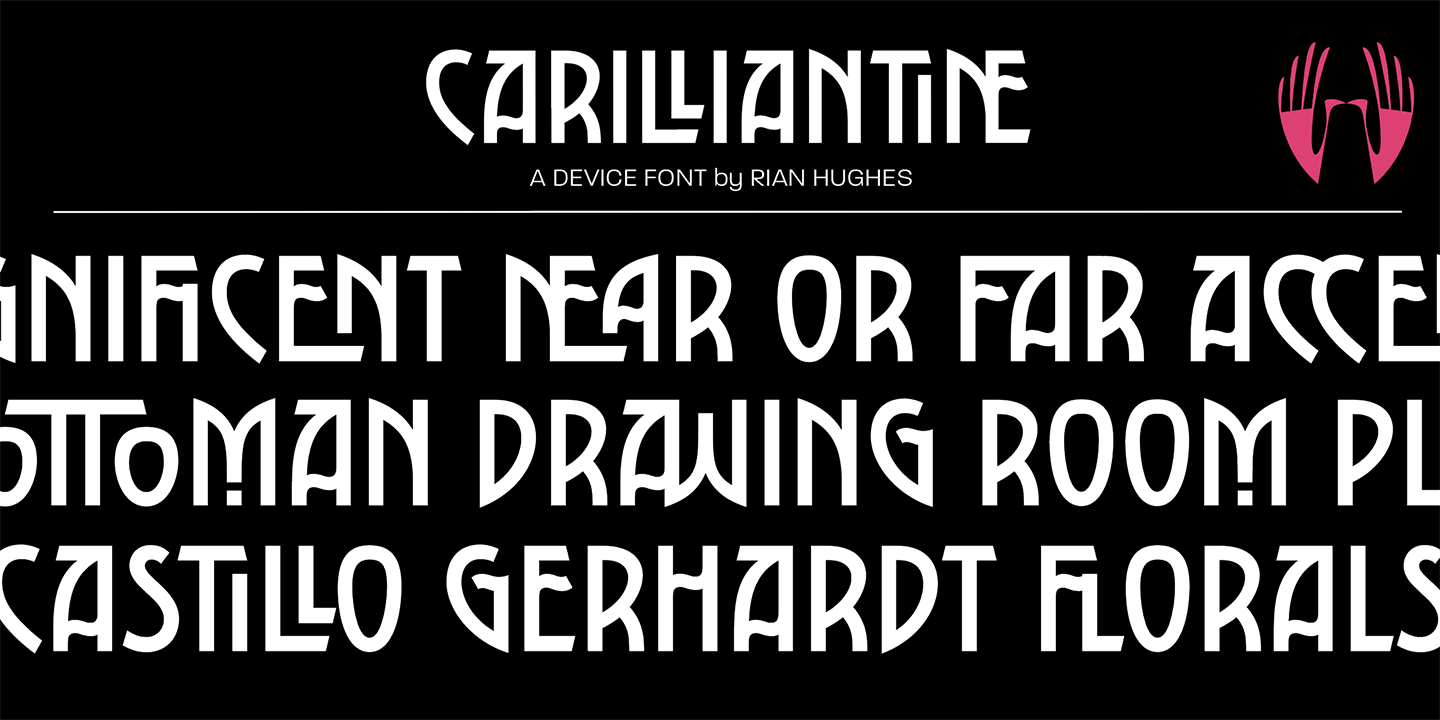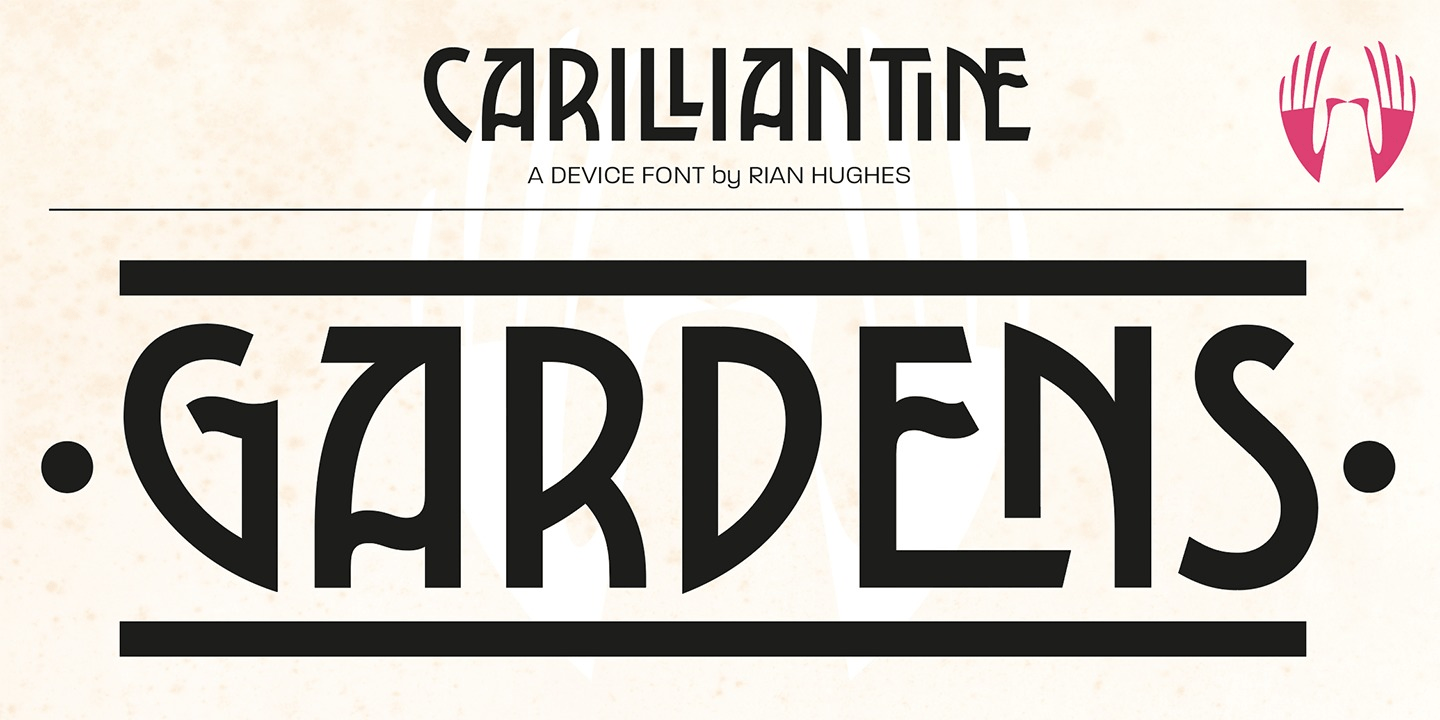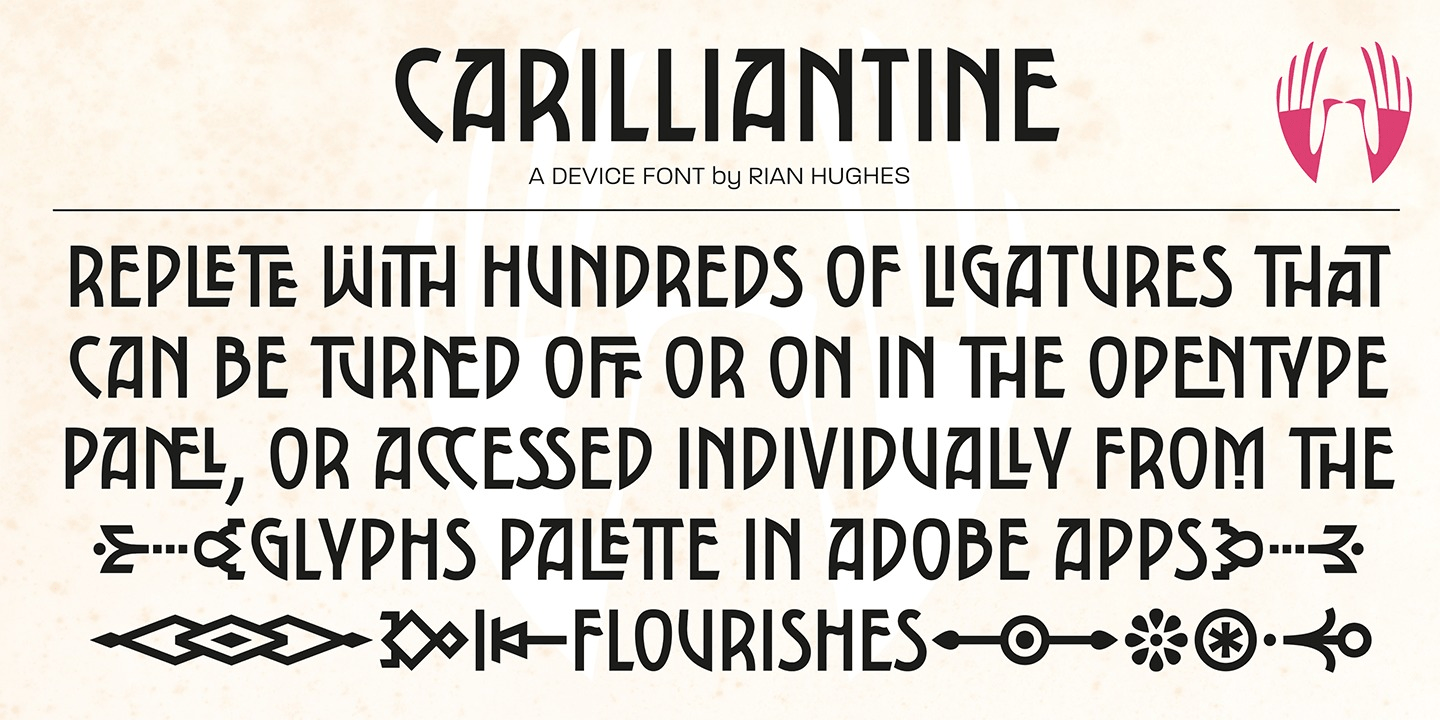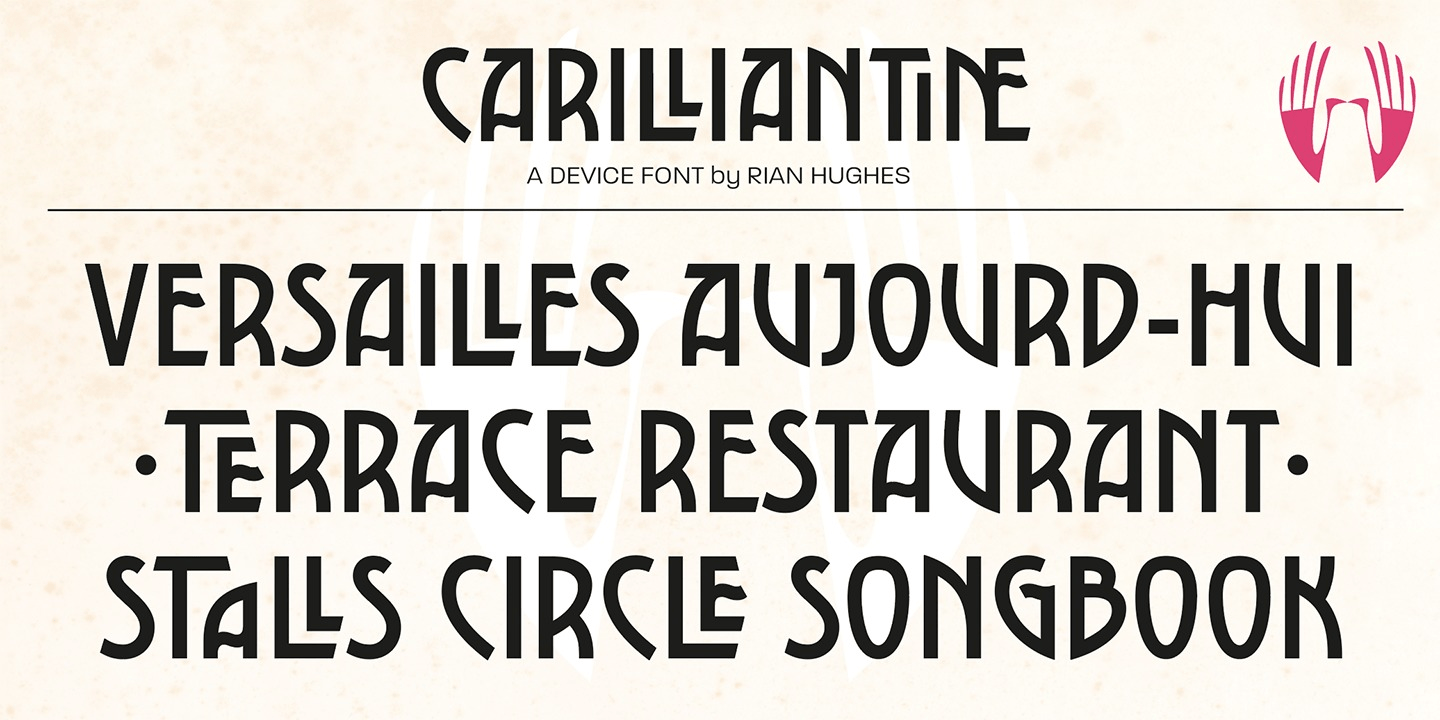
Carilliantine updates the organic curves of Art Nouveau typefaces typified by John F. Cumming\’s Desdemona, designed around 1886. A contemporary monoline sans reinterpretation rather than a more traditional serif, its high-waisted emphasis lends it an…